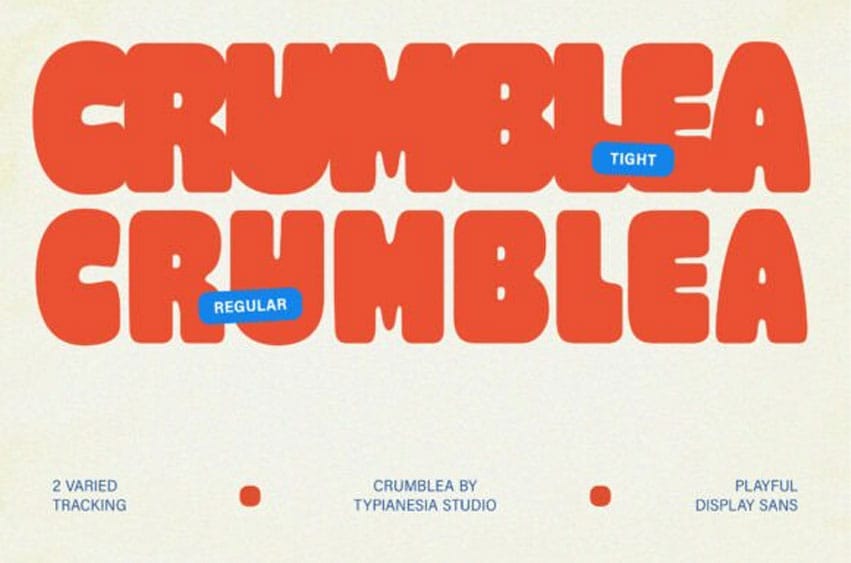
Crumblea Font is a playful retro display font with chunky, rounded shapes that radiate positivity and nostalgia.
Its soft edges and uniform weight give it a warm, 70s-inspired charm, while still feeling fresh and modern. Designed to be bold yet friendly, it instantly draws attention with its bubbly presence.
Perfect for posters, packaging, social media graphics, and brand logos, Crumblea is a must for projects that want to feel approachable yet bold. It balances whimsy and strength, offering a timelessly fun aesthetic. Its flexible spacing options (tight and regular) make it adaptable for both compact designs and open layouts.